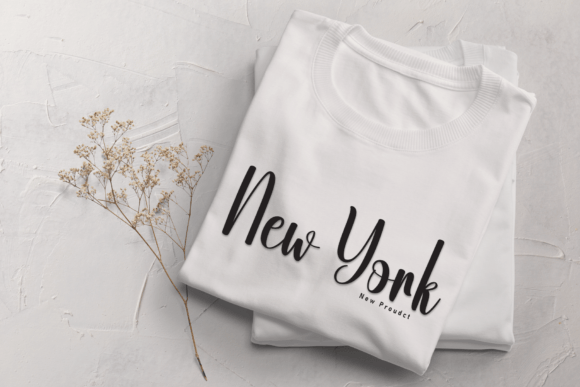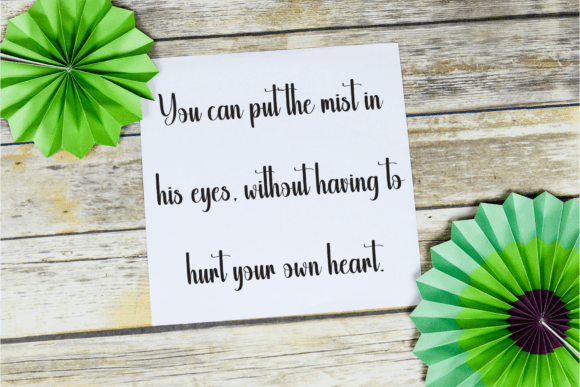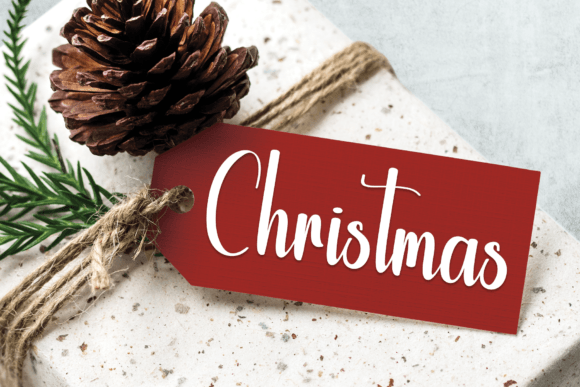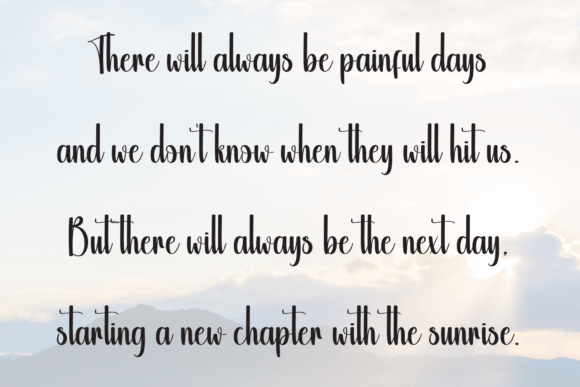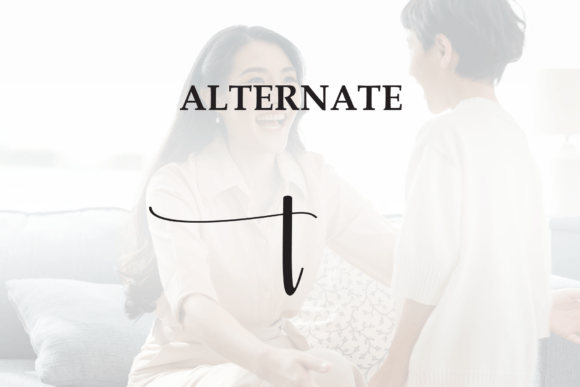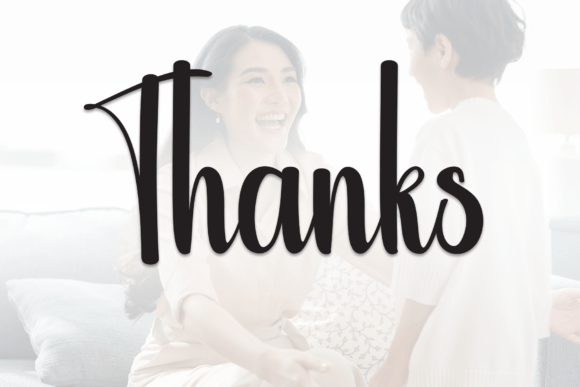
Introducing Delightful Font: Add a Touch of Whimsy to Your Designs
Are you tired of using the same old fonts in your designs? Look no further than Delightful Font, a sweet and friendly handwritten display font that’s sure to add a fun touch to any project. In this article, we’ll take a closer look at Delightful Font, its features, and how you can use it to create stunning designs that will leave a lasting impression.
What is Delightful Font?
Delightful Font is a beautiful, handwritten display font that’s perfect for adding a personal touch to your designs. With its cute and fun style, this font is ideal for writing wedding invitations, cards, or any other design that might need a playful twist. Whether you’re a designer, crafter, or DIY enthusiast, Delightful Font is a great addition to your font collection.
Key Features of Delightful Font
- Handwritten style: Delightful Font has a charming, handwritten style that’s perfect for creating unique and personalized designs.
- Cute and fun: This font is designed to add a touch of whimsy to your designs, making it perfect for projects that require a playful twist.
- Display font: Delightful Font is a display font, making it perfect for headlines, titles, and other design elements that need to stand out.
- Easy to read: Despite its playful style, Delightful Font is easy to read, making it perfect for body text and other design elements.
Uses for Delightful Font
Delightful Font is a versatile font that can be used in a variety of design projects, including:
- Wedding invitations: Add a touch of romance and whimsy to your wedding invitations with Delightful Font.
- Cards and stationery: Use Delightful Font to create unique and personalized cards and stationery for special occasions.
- DIY projects: Delightful Font is perfect for DIY enthusiasts who want to add a personal touch to their projects, such as scrapbooking, journaling, and crafting.
- Graphic design: Use Delightful Font in your graphic design projects, such as brochures, flyers, and posters, to add a touch of personality and whimsy.
Tips for Using Delightful Font
Here are some tips for using Delightful Font in your designs:
- Use it as a headline font: Delightful Font is perfect for headlines and titles, so use it to add a touch of personality to your design.
- Pair it with other fonts: Delightful Font pairs well with other fonts, so experiment with different combinations to create a unique look.
- Use it for body text: While Delightful Font is a display font, it’s also easy to read, making it perfect for body text and other design elements.
Delightful Font is a sweet and friendly handwritten display font that’s perfect for adding a touch of whimsy to your designs. With its cute and fun style, this font is ideal for writing wedding invitations, cards, or any other design that might need a playful twist. Whether you’re a designer, crafter, or DIY enthusiast, Delightful Font is a great addition to your font collection. So why not give it a try and see how it can add a touch of personality to your designs?